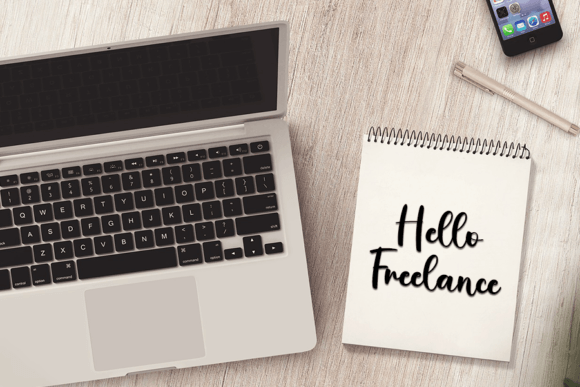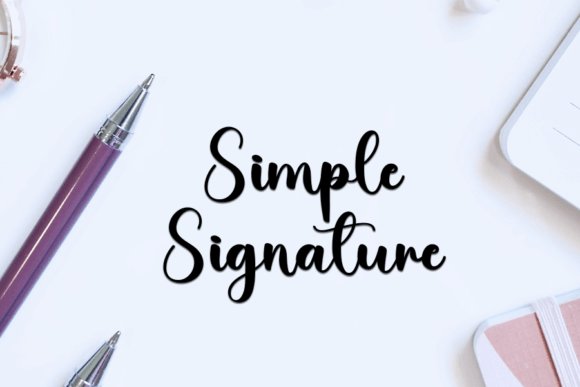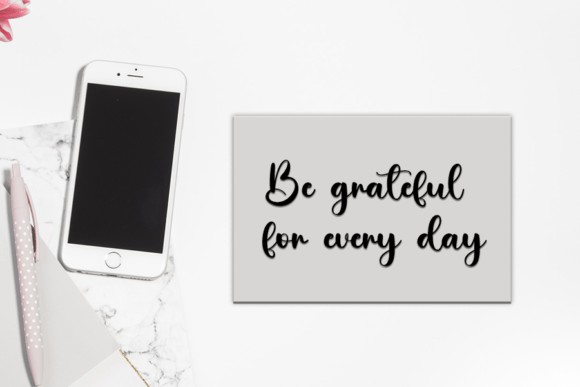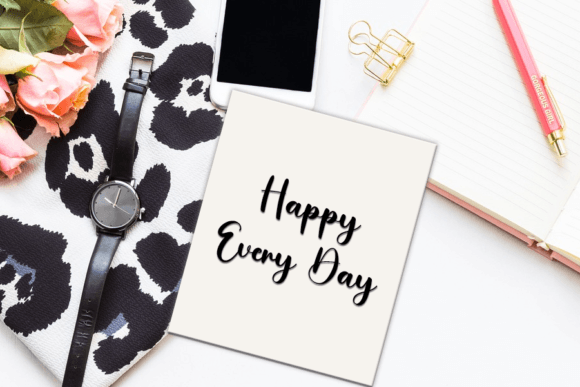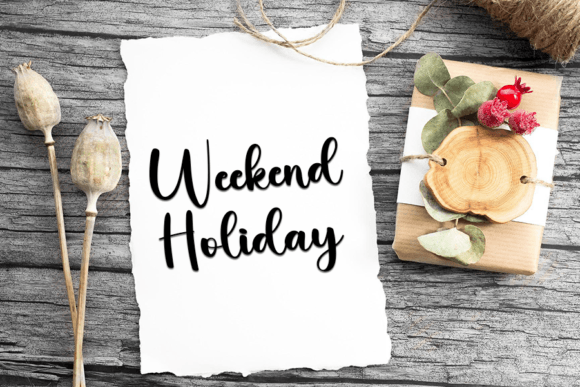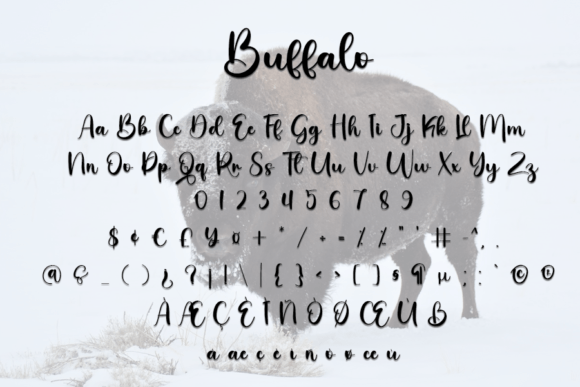
Introducing Buffalo Font: The Cool and Modern Handwritten Font for All Occasions
Are you tired of using the same old fonts for your crafts, digital designs, presentations, and greeting cards? Look no further than Buffalo Font, a cool and modern handwritten font that’s sure to become your new favorite go-to font. With its unique and stylish lettering, Buffalo Font is perfect for adding a personal touch to any project.
What Makes Buffalo Font So Special?
Buffalo Font is a carefully crafted handwritten font that’s designed to be both elegant and approachable. Its modern and cool style makes it perfect for a wide range of applications, from digital designs and presentations to crafts and greeting cards. Whether you’re a designer, crafter, or simply someone who loves to add a personal touch to your projects, Buffalo Font is sure to impress.
Uses for Buffalo Font
One of the best things about Buffalo Font is its versatility. Here are just a few ideas for how you can use this amazing font:
- Crafts: Add a personal touch to your handmade crafts, such as knitted items, scrapbooking, and DIY jewelry.
- Digital Design: Use Buffalo Font to add a stylish and modern touch to your digital designs, such as social media graphics, blog posts, and website headers.
- Presentations: Make your presentations stand out with Buffalo Font, perfect for titles, headings, and emphasis text.
- Greeting Cards: Create beautiful and unique greeting cards for any occasion, from birthdays and holidays to weddings and graduations.
Why Choose Buffalo Font?
So why should you choose Buffalo Font over other fonts? Here are just a few reasons:
- Unique Style: Buffalo Font has a unique and stylish lettering that will set your projects apart from the rest.
- Elegant and Approachable: This font is both elegant and approachable, making it perfect for a wide range of applications.
- Easy to Read: Buffalo Font is clear and easy to read, making it perfect for body text and headings.
- High-Quality: This font is carefully crafted to ensure high-quality and consistency throughout.
Tips for Using Buffalo Font
Here are a few tips for getting the most out of Buffalo Font:
- Experiment with Sizes: Try out different font sizes to see how Buffalo Font looks in different contexts.
- Pair with Other Fonts: Experiment with pairing Buffalo Font with other fonts to create a unique and stylish look.
- Use for Emphasis: Use Buffalo Font to add emphasis to important text, such as headings and titles.
- Add a Personal Touch: Use Buffalo Font to add a personal touch to your projects, such as handmade crafts and greeting cards.